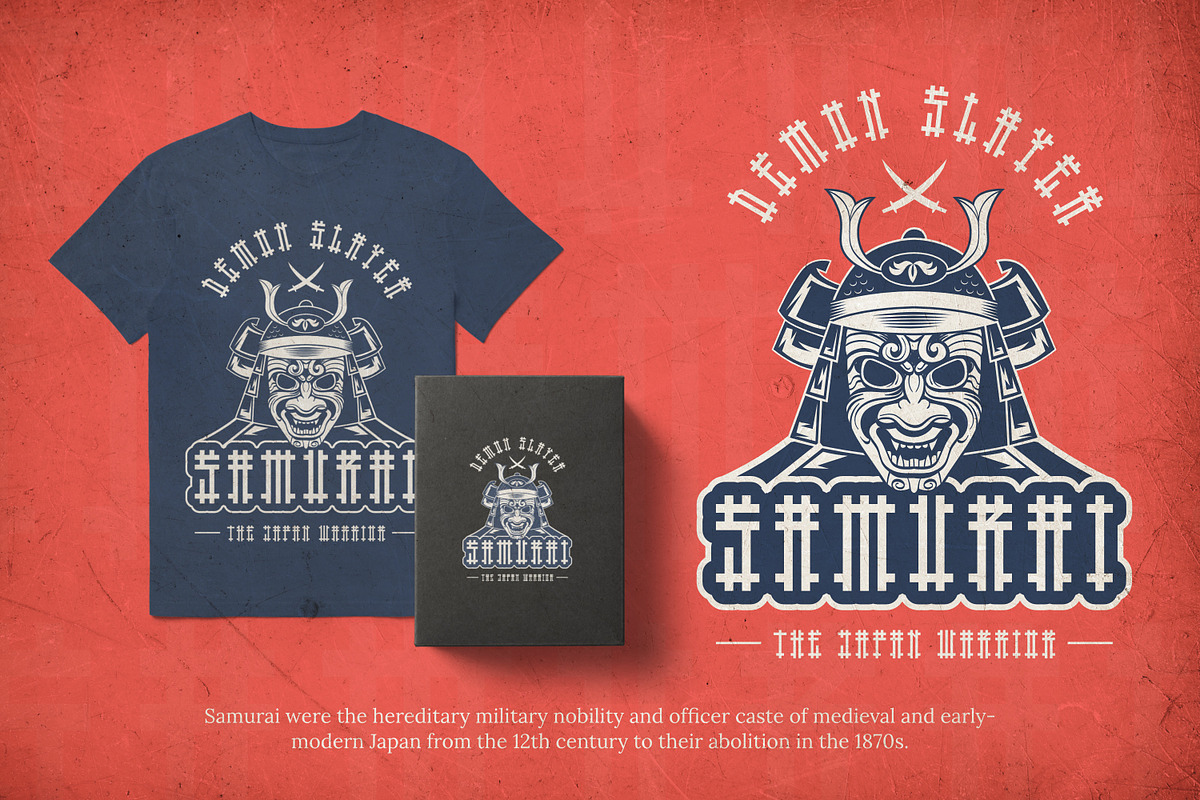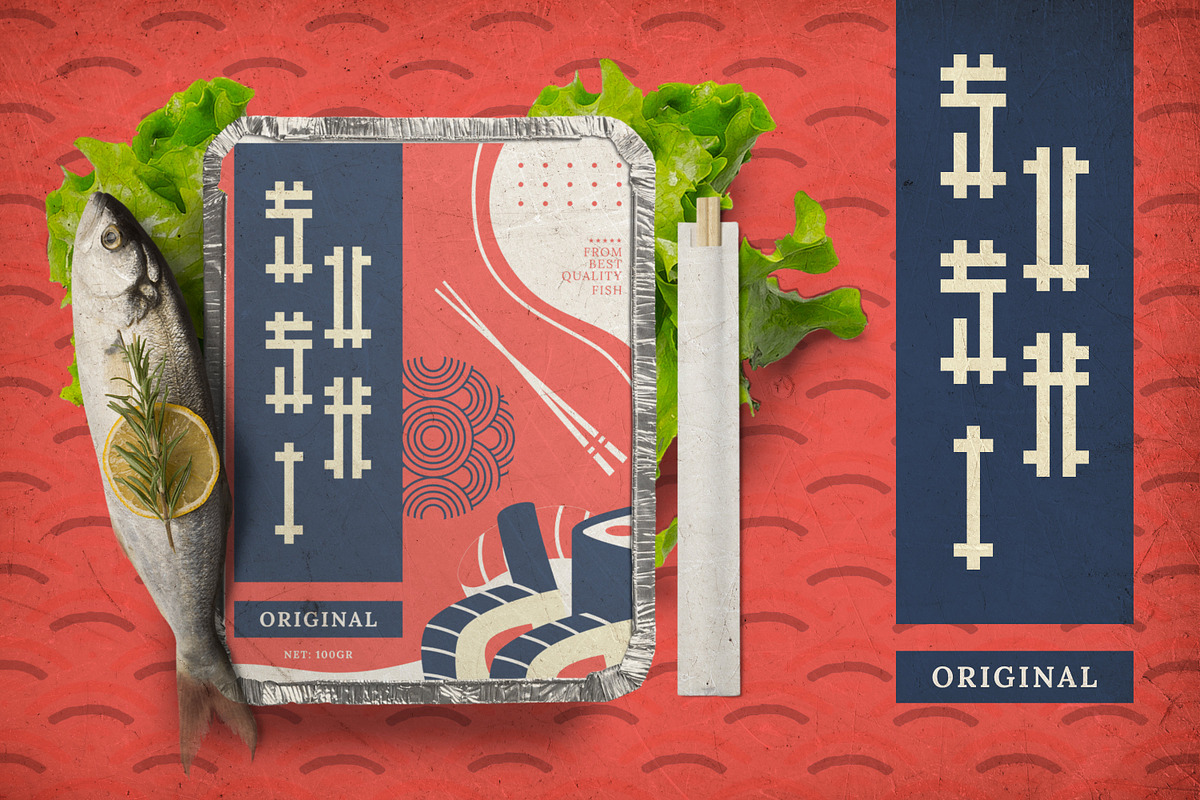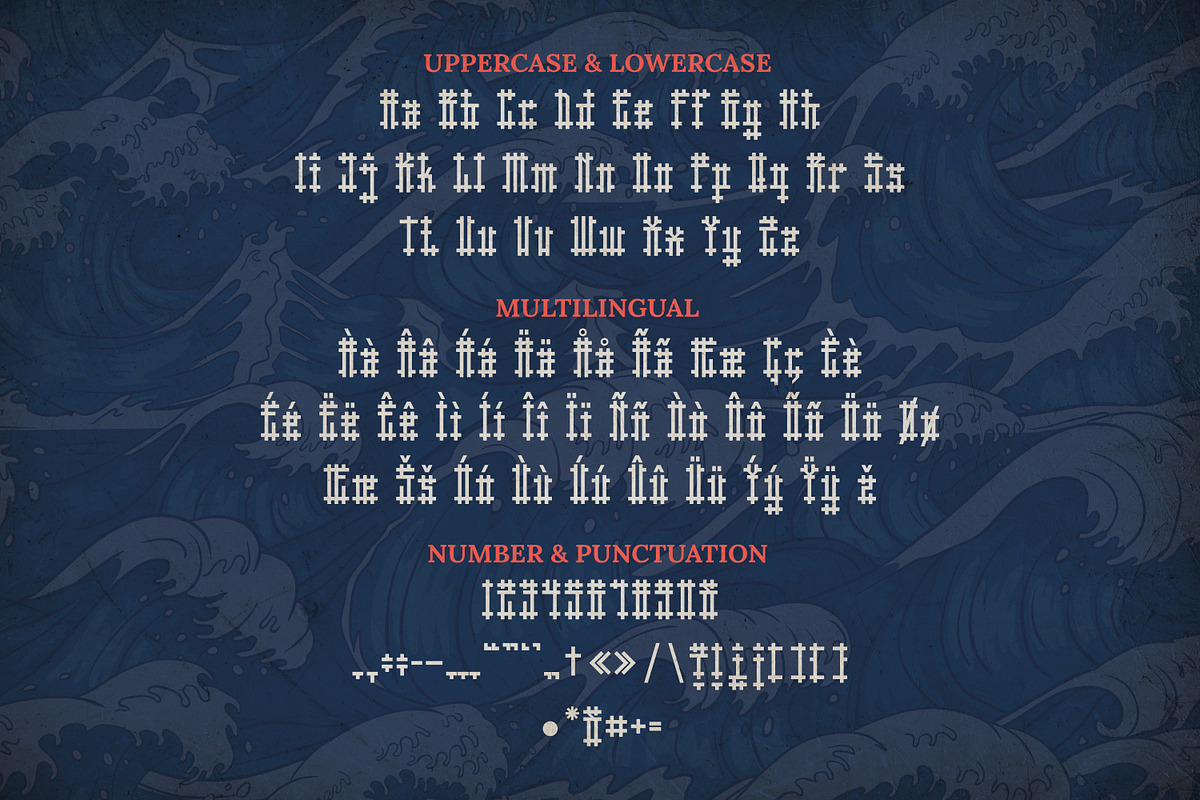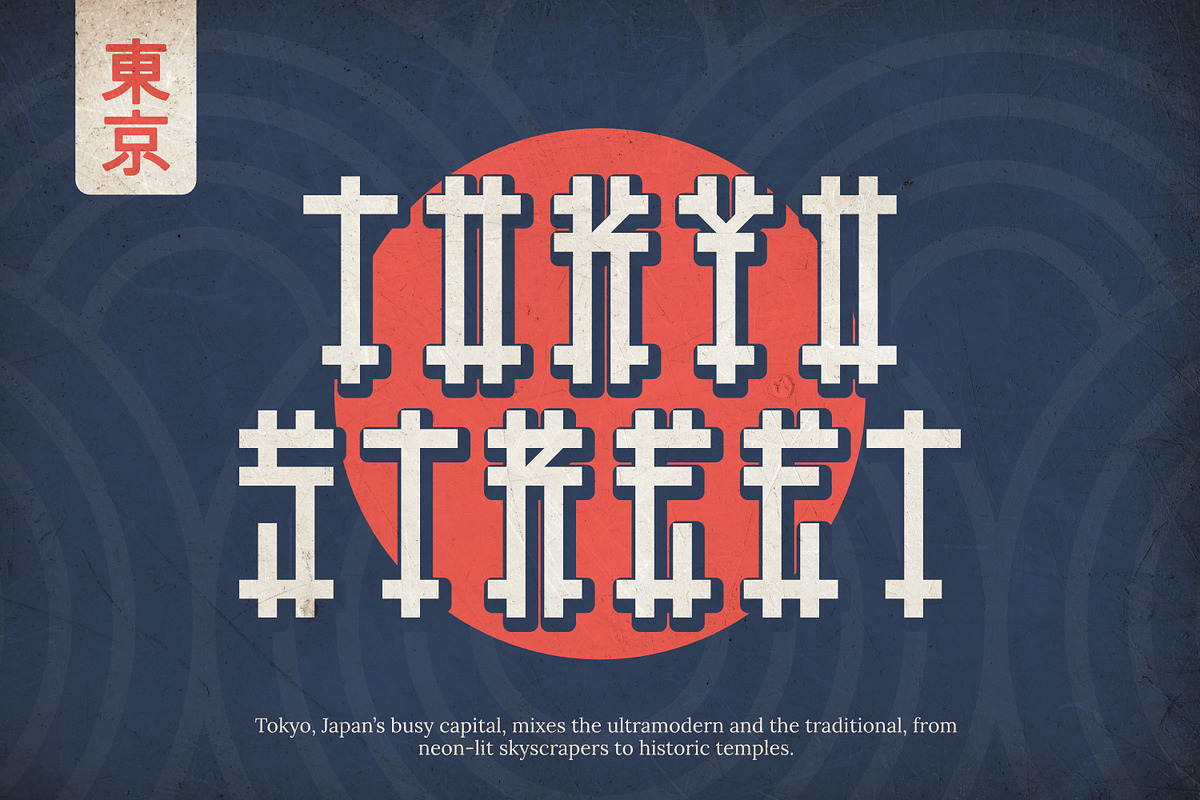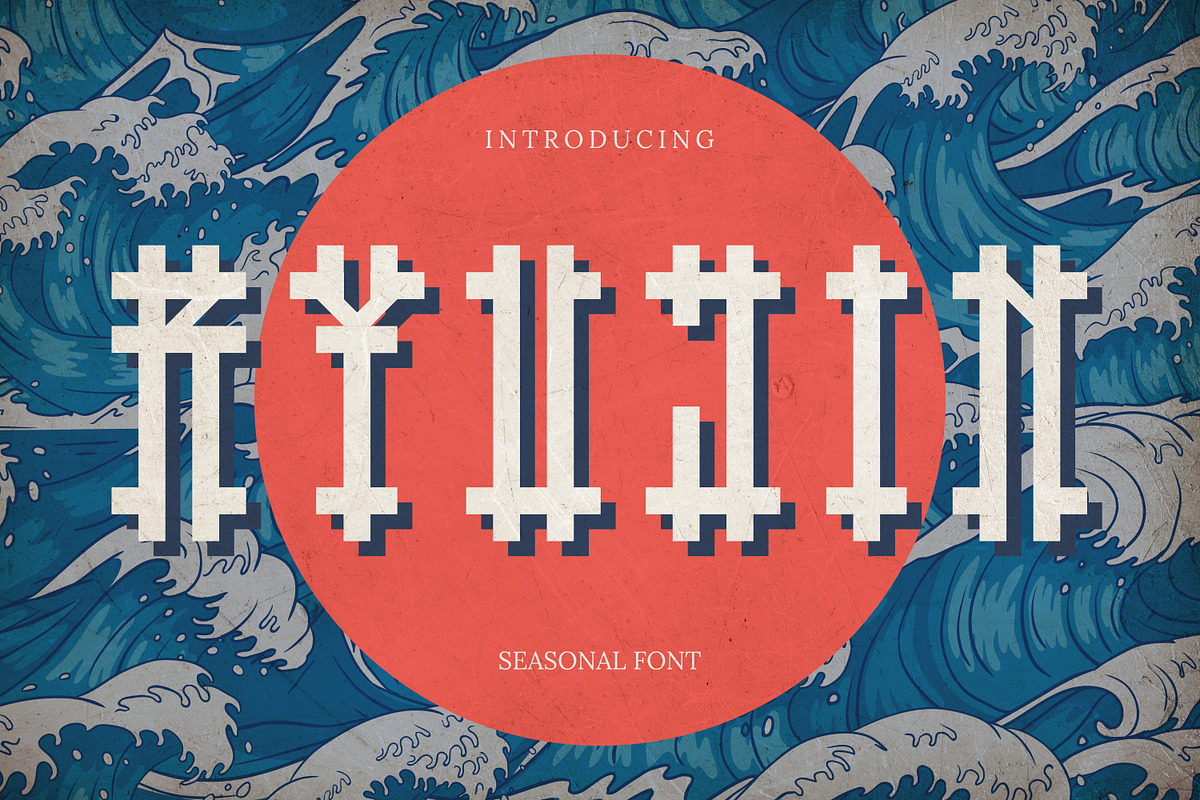
Ryujin Font
Font product Suitable for T-shirt designs, Crafts, Posters, Illustrations, Books, Packaging, Logos, Mugs, Games, Web, Wall Art or other design works.